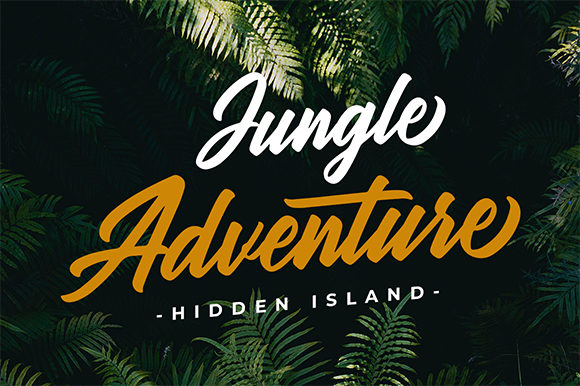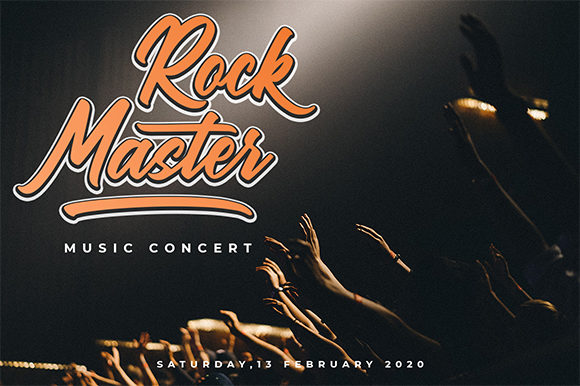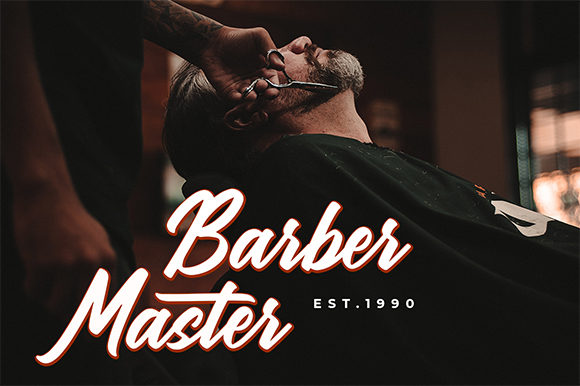
Introduction to Sandblack Font
Sandblack feels equally casual and elegant.
It will elevate a wide range of design projects to the highest level, be it branding, headings, wedding designs, invitations, signatures, logos, labels, and much more .
Sandblack Font offers exceptional quality and versatility, making it a valuable addition to your design toolkit. Whether you’re creating for personal projects or commercial use, Sandblack Font delivers professional results.